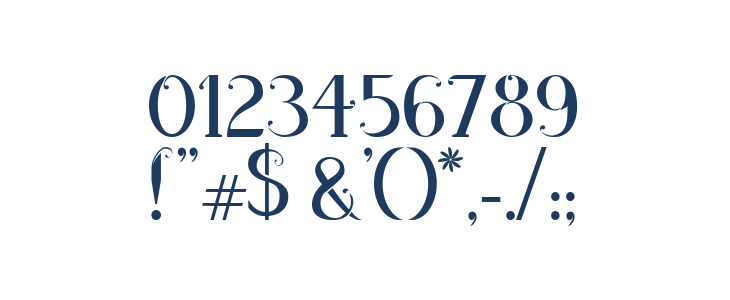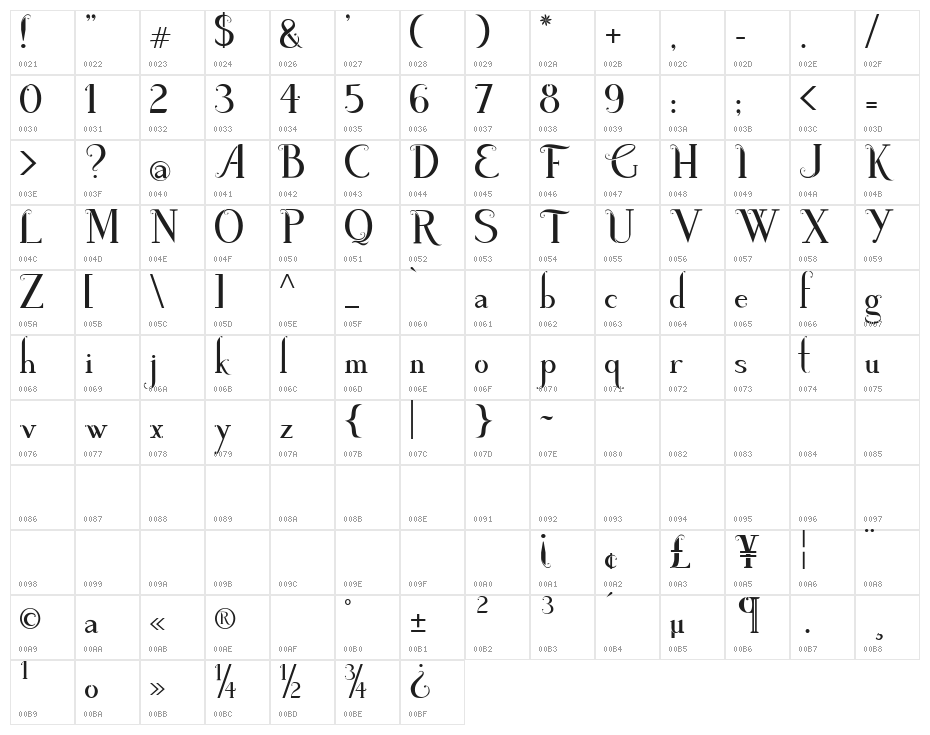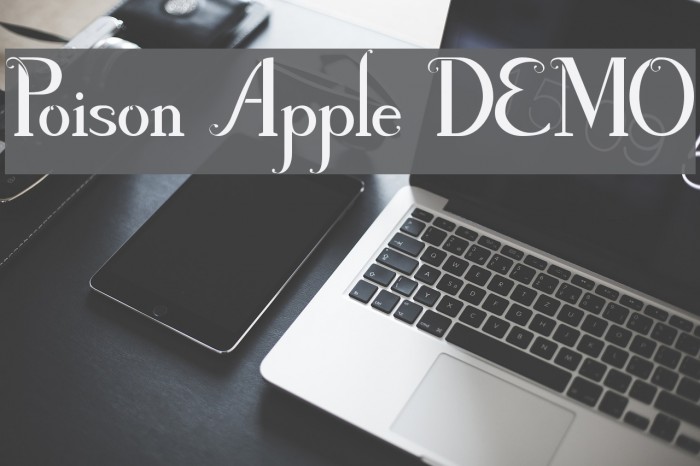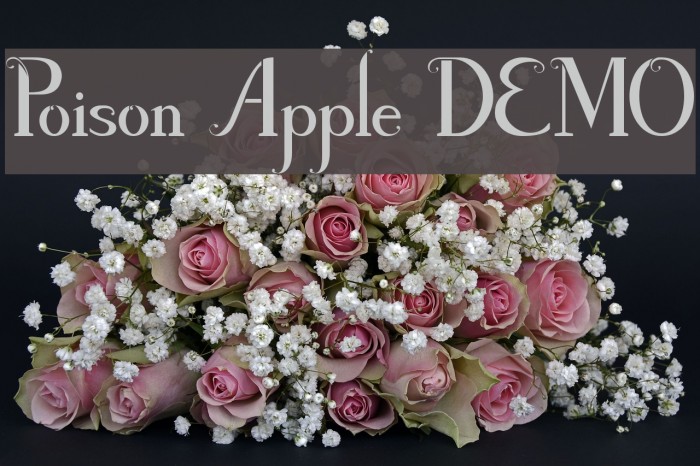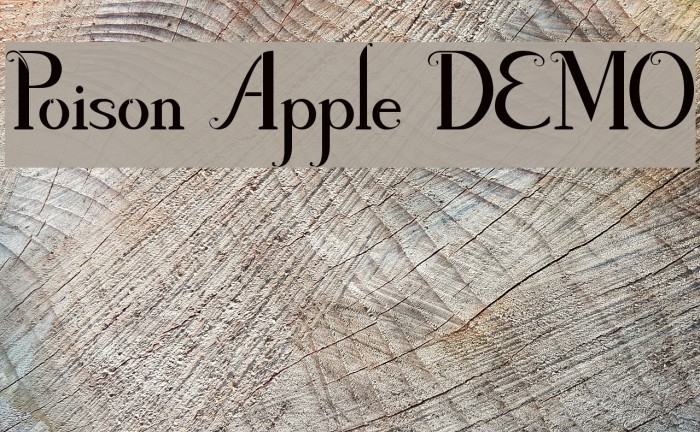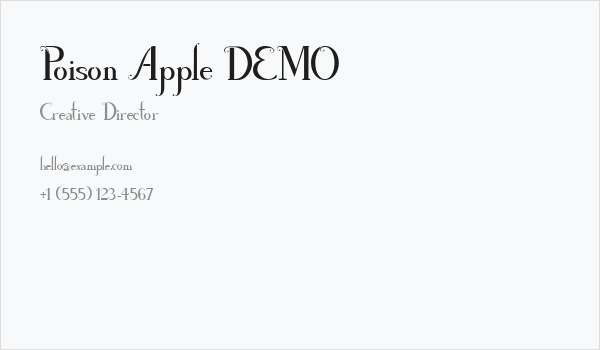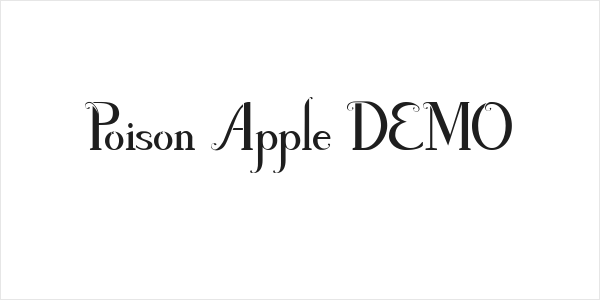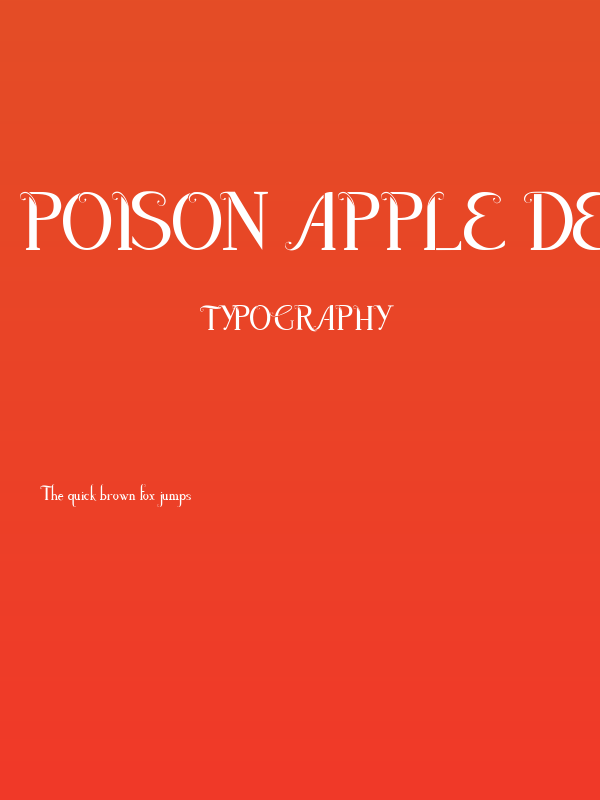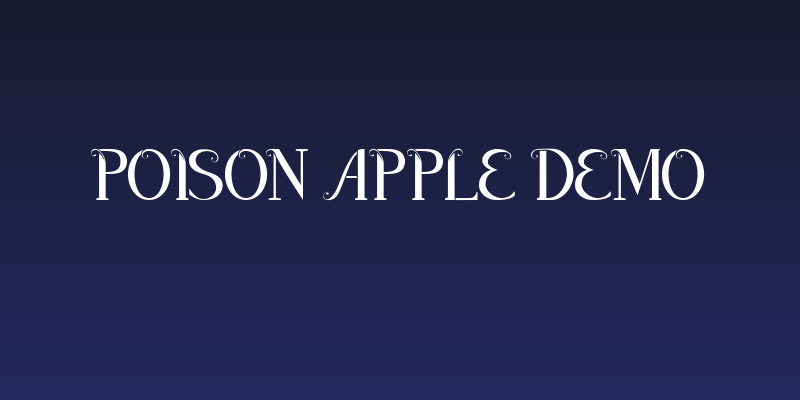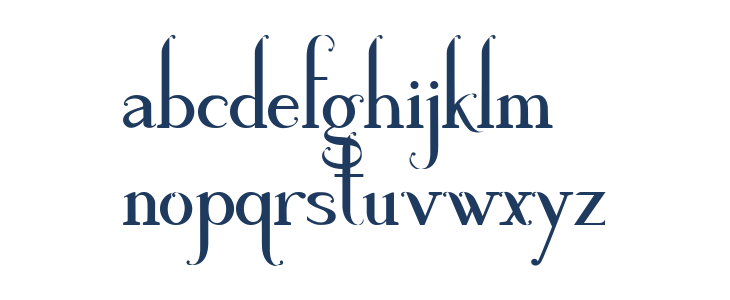
Poison Apple DEMO Font
Poison Apple DEMO Description
This font features an elegant and decorative style with a whimsical touch. The uppercase letters are adorned with delicate swirls and curls, adding a playful yet sophisticated flair. The lowercase letters maintain a more straightforward design but still carry subtle embellishments that enhance their charm. The numerals are consistent with the overall theme, incorporating slight curves and flourishes. Special characters are creatively designed, matching the ornate style of the alphabet. This font's unique characteristics make it stand out, perfect for projects that require a touch of fantasy or elegance.
| Proposed Projects | Ideal for fairy tale book covers, wedding invitations, fantasy-themed branding, and decorative posters. |